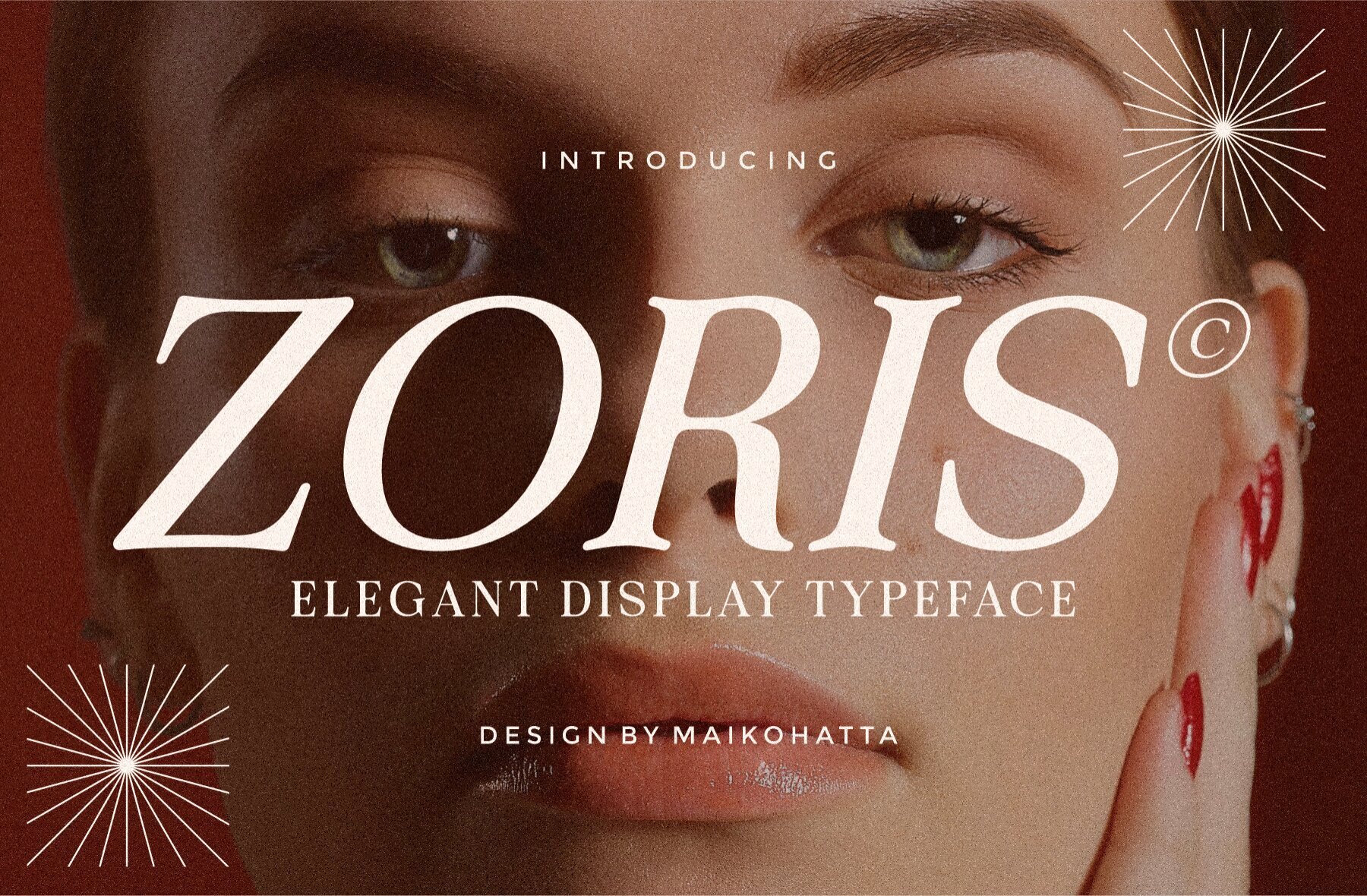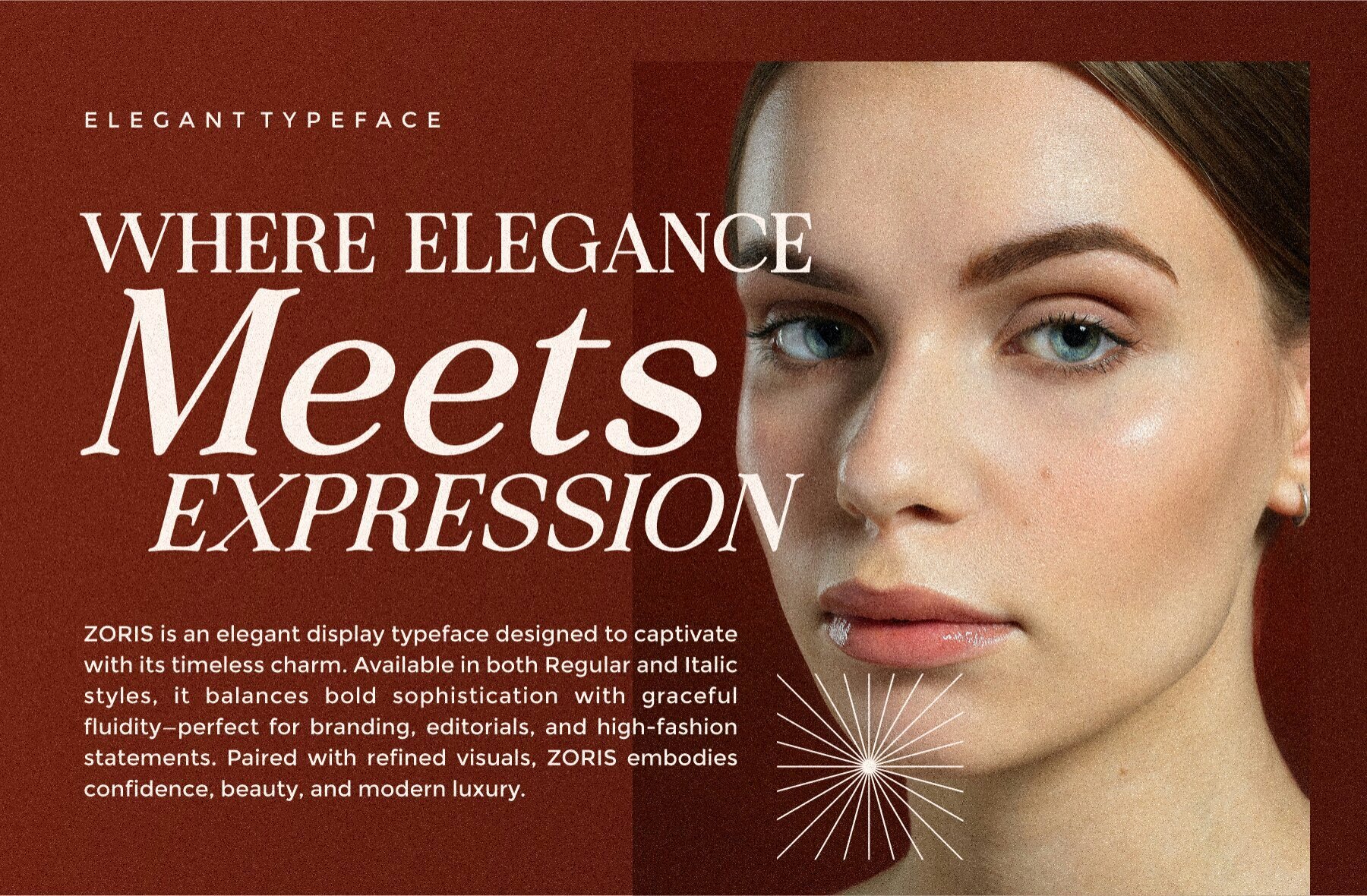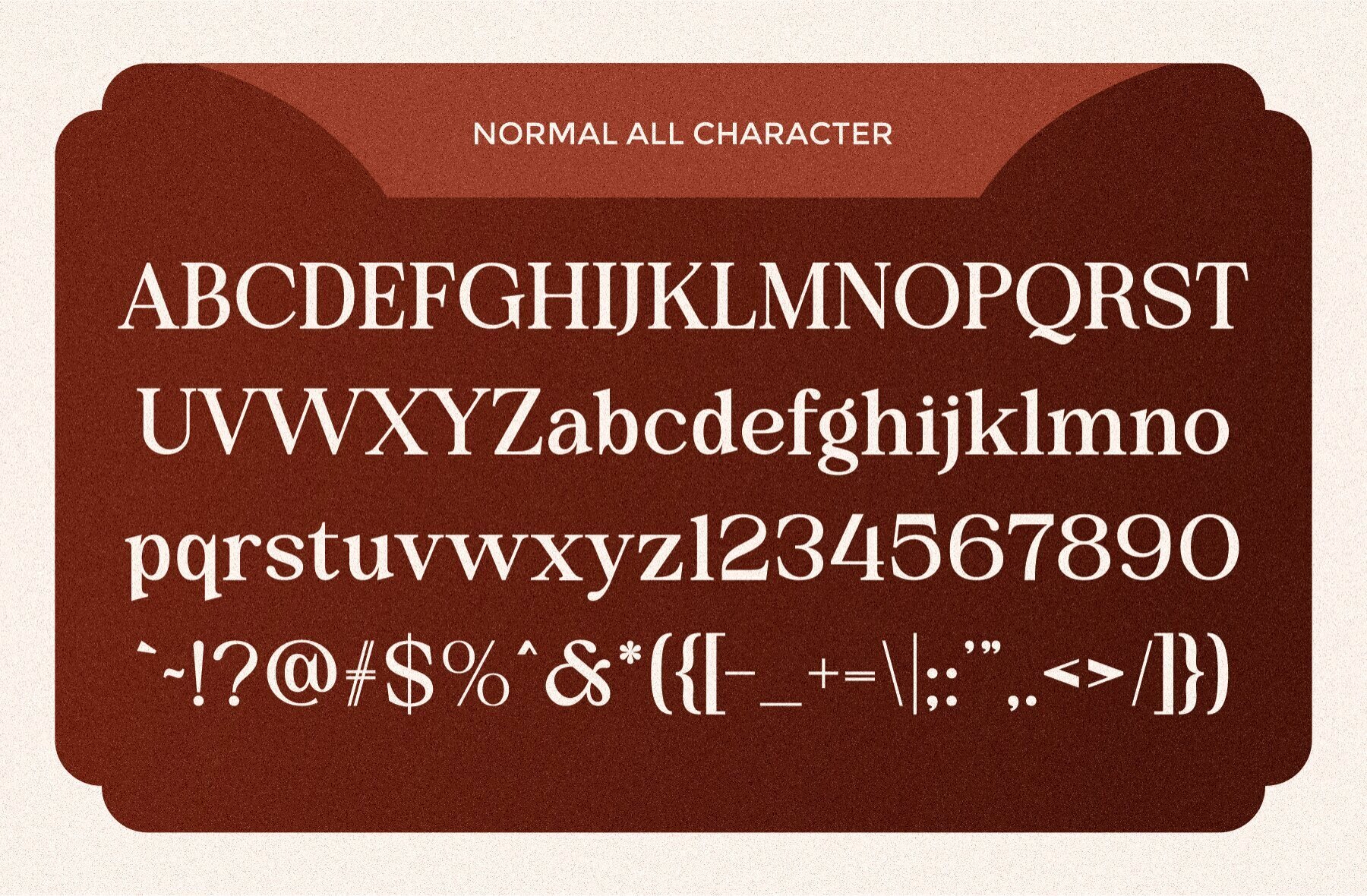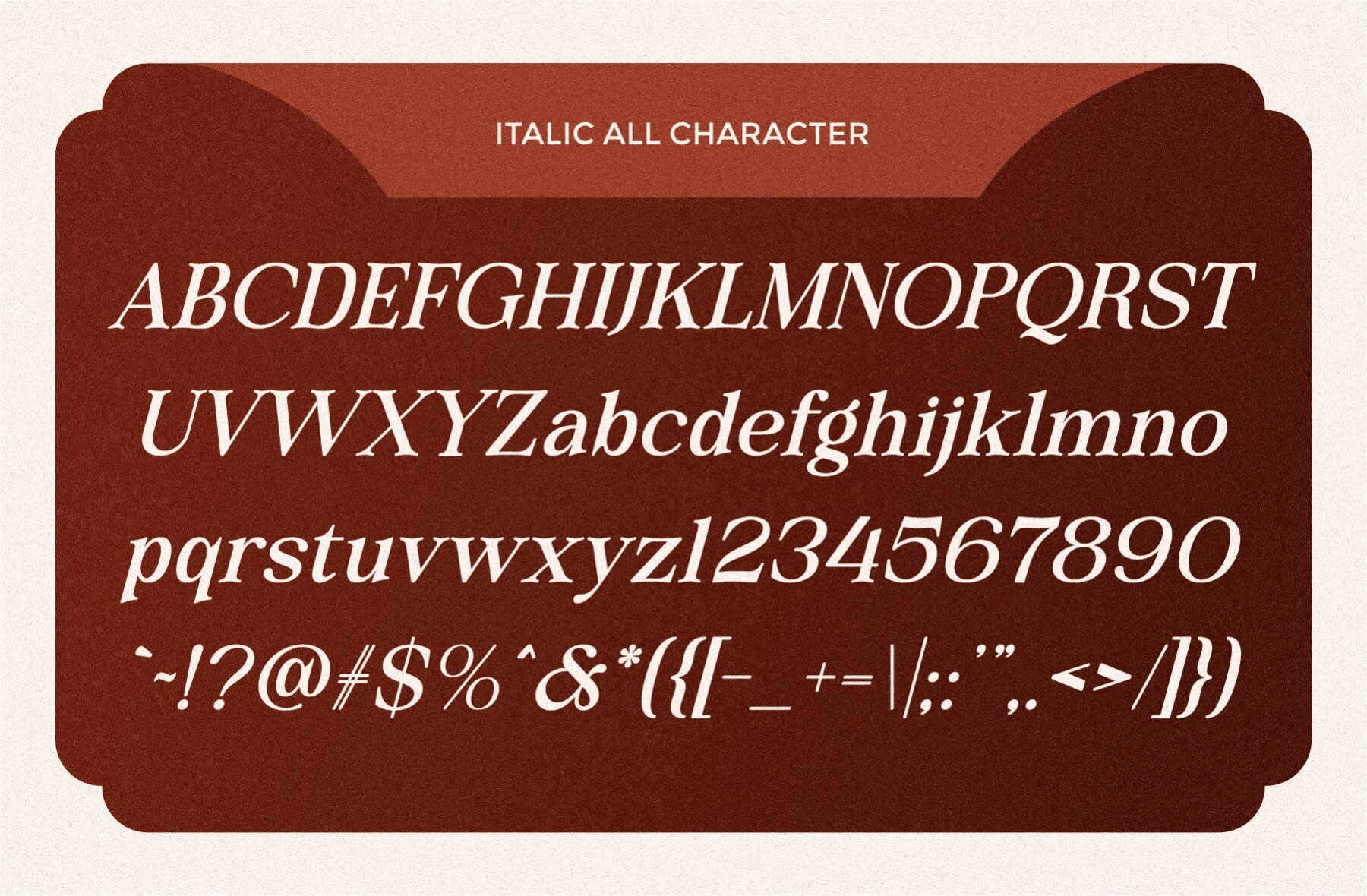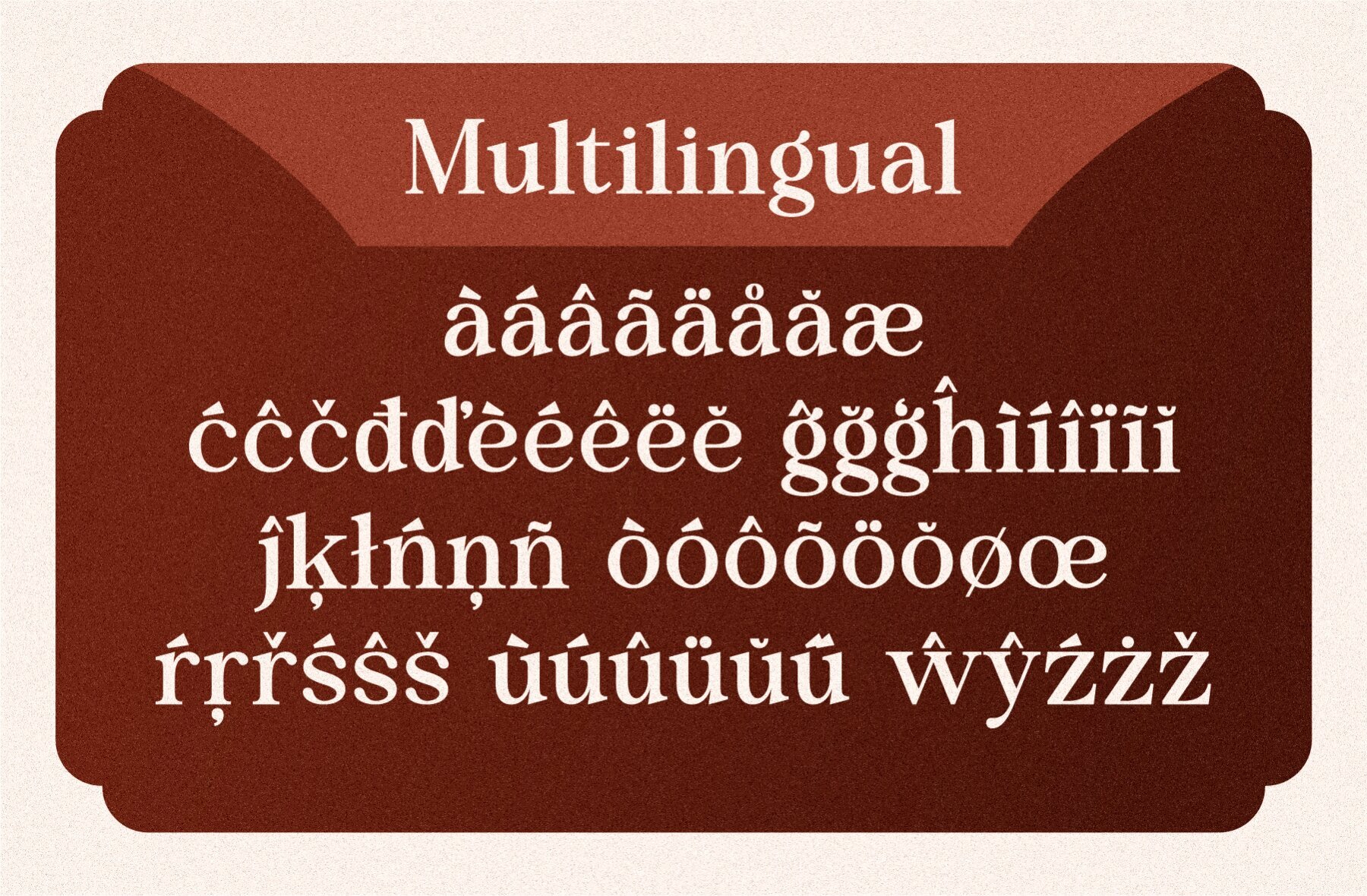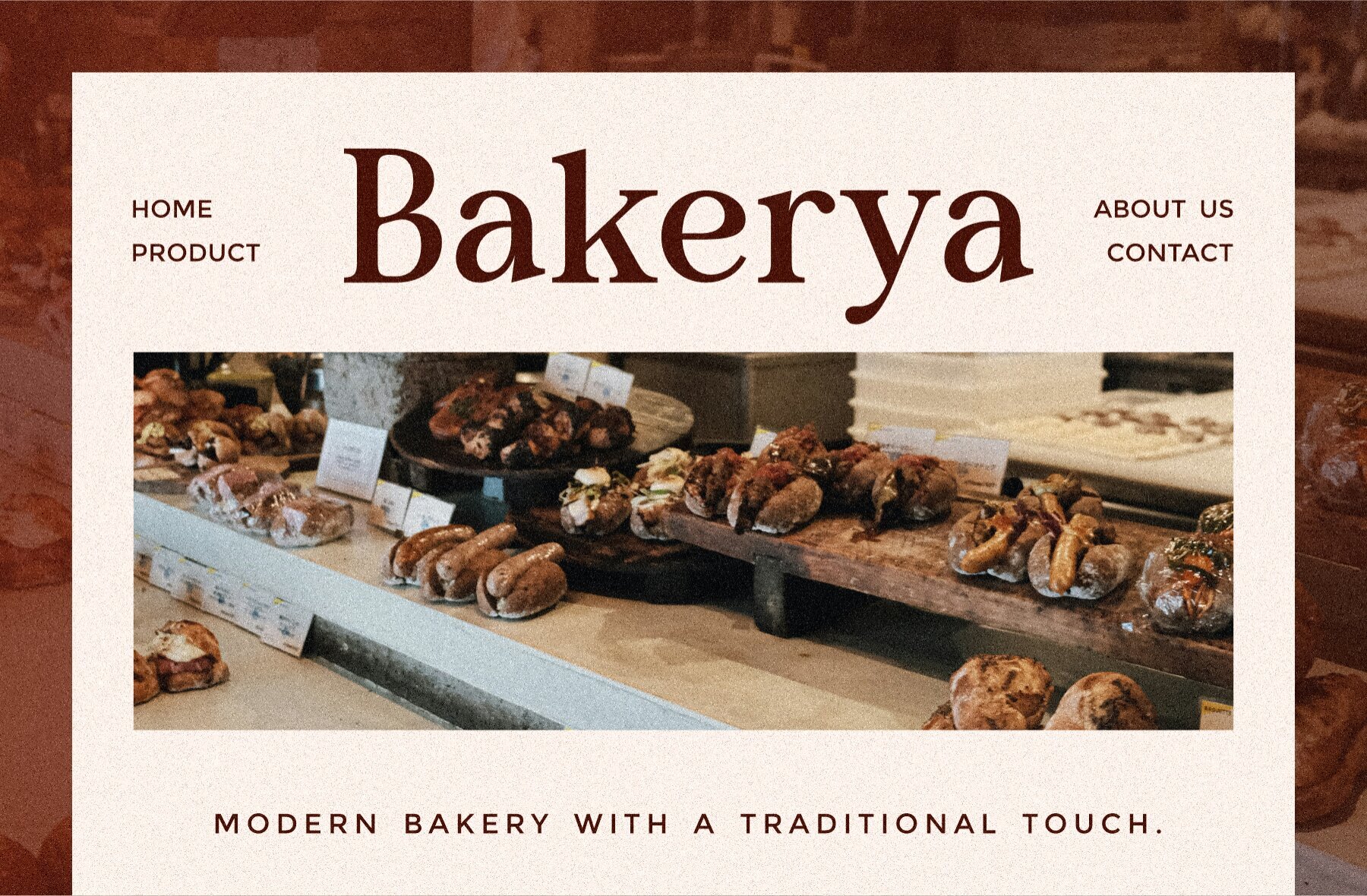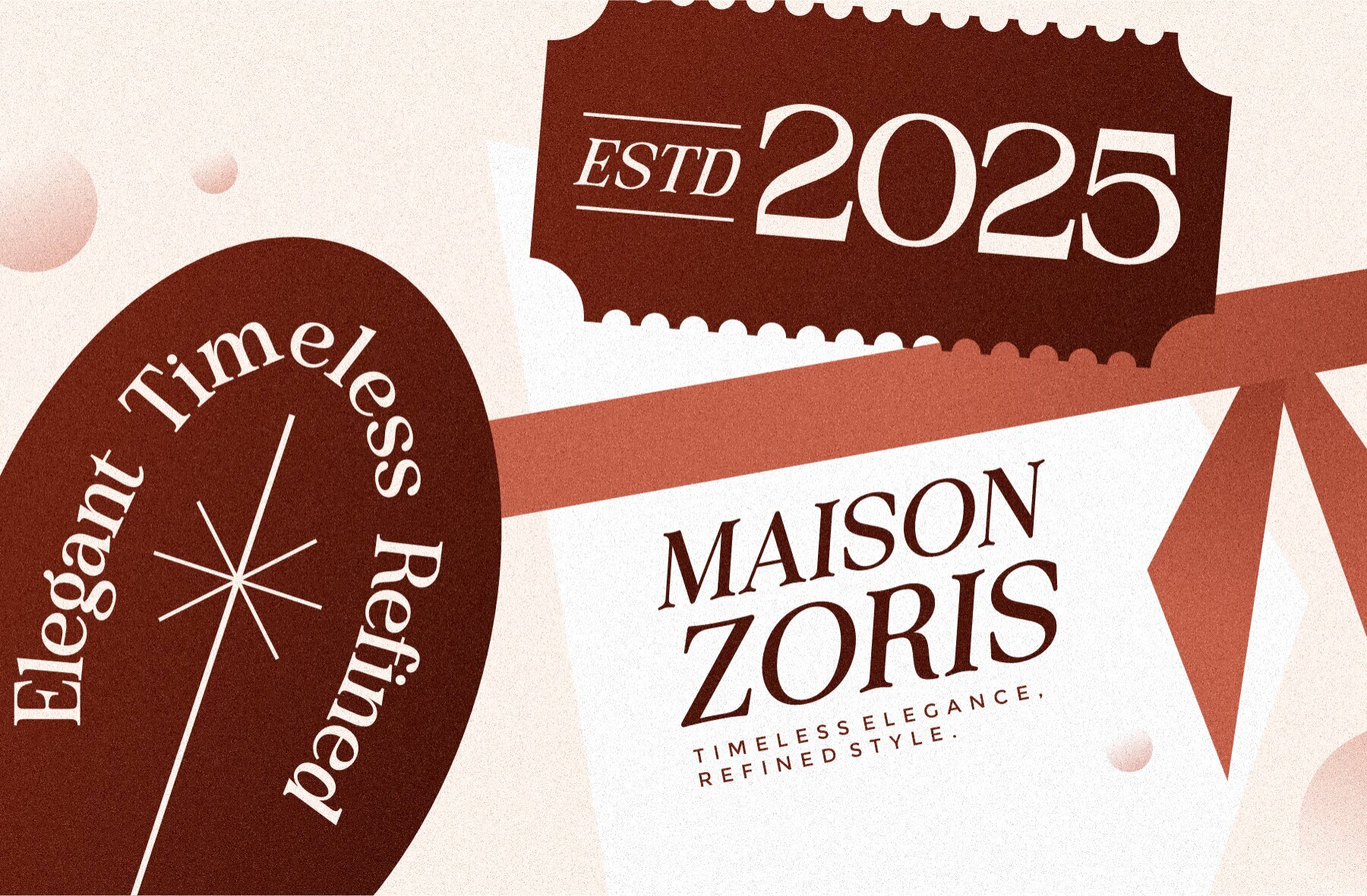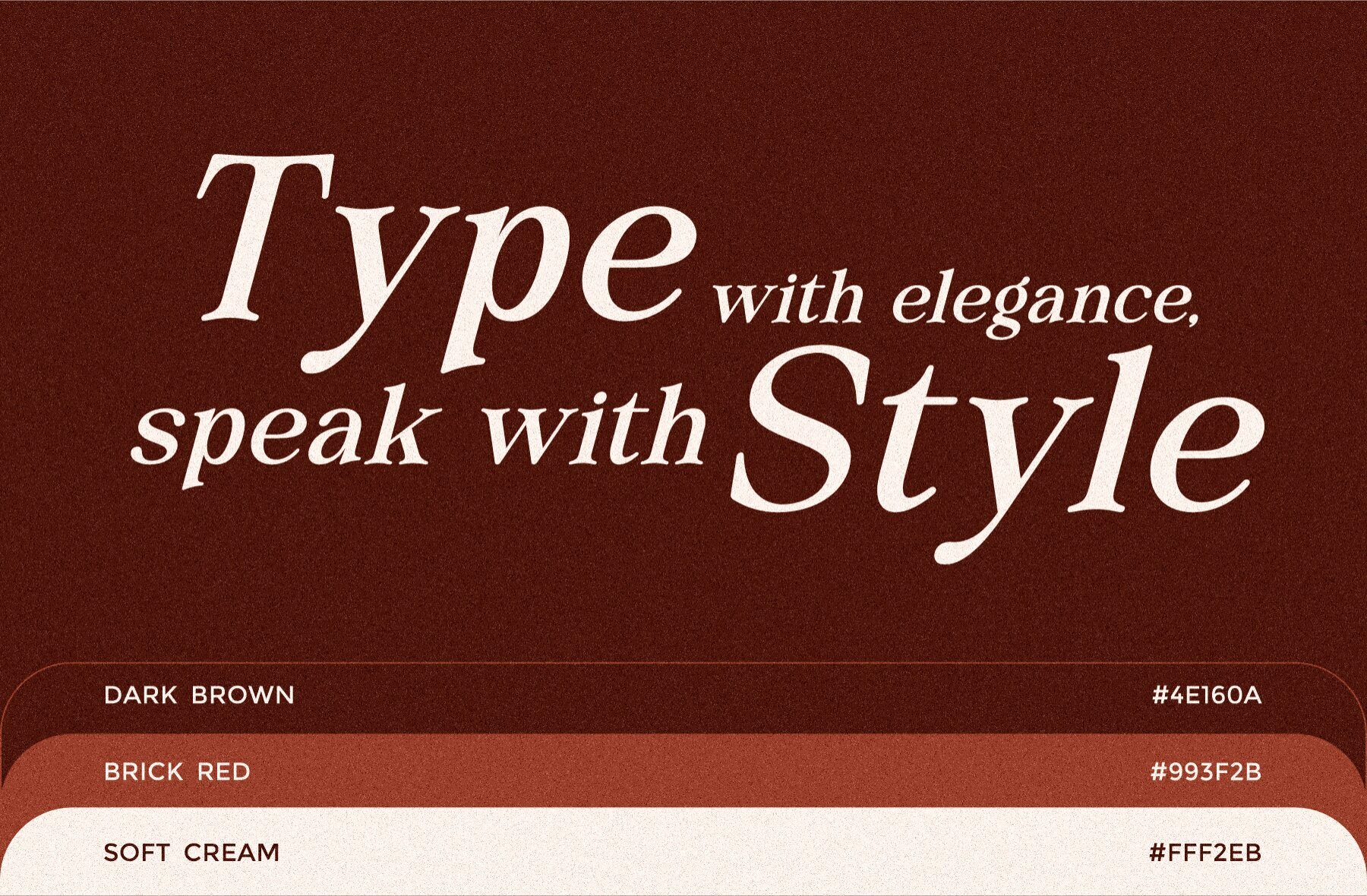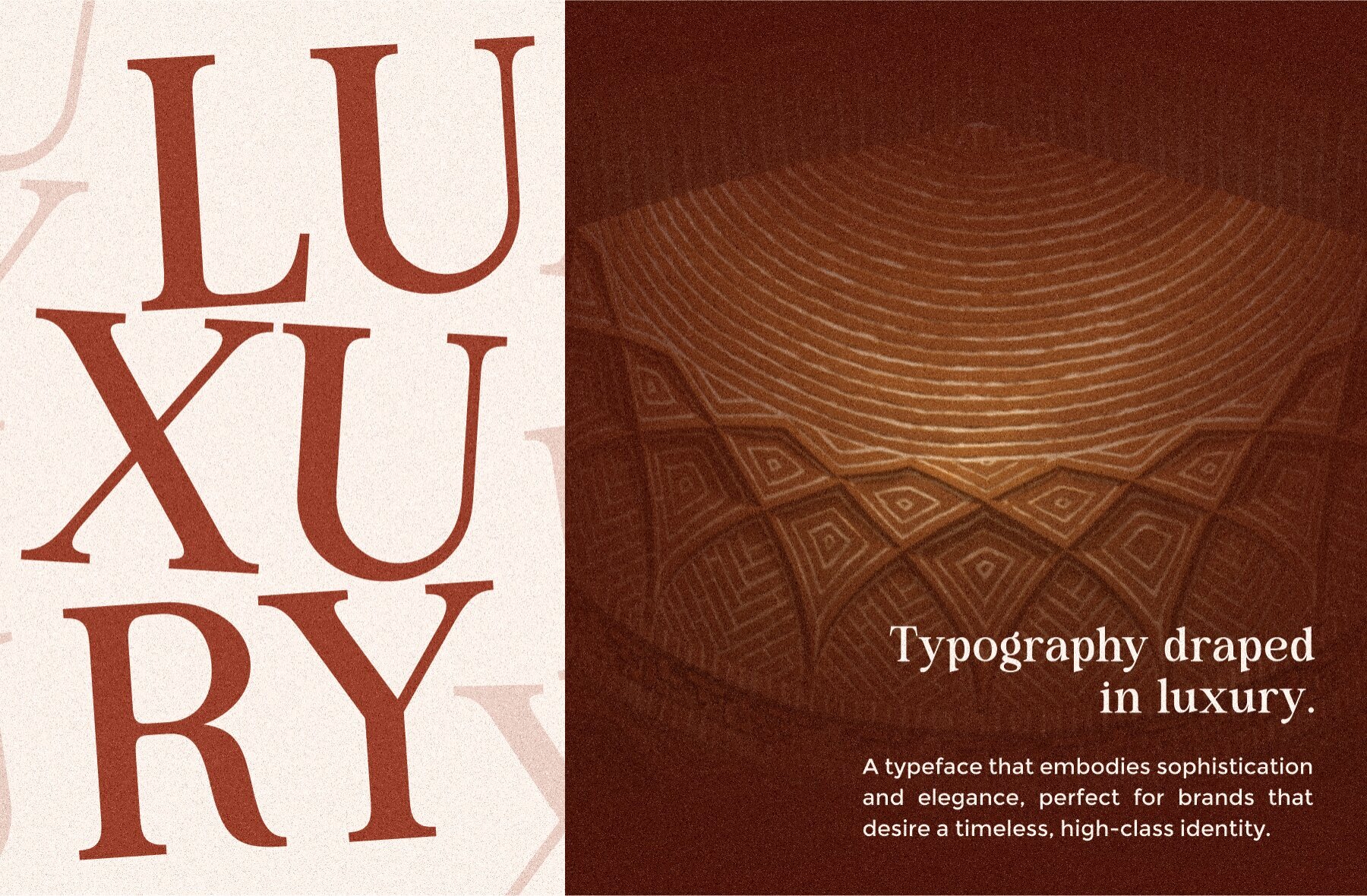
Zoris Font
Introducing Zoris, a serif display typeface that exudes refinement and sophistication. Its graceful curves and high-contrast strokes bring an air of elegance to any project. Perfect for striking headlines, luxury branding, or fashion editorials, Zoris offers a blend of classic beauty and modern aesthetics. Whether for invitations or premium packaging, its stylish details create a polished and distinctive character. This versatile typeface seamlessly adapts to contemporary and traditional design needs, making it ideal for diverse applications. Craft logos, wedding stationery, magazine layouts, or upscale product labels with confidence, knowing Zoris enhances each piece with its refined look.Zoris: Elegant Display Typeface with Timeless Charm